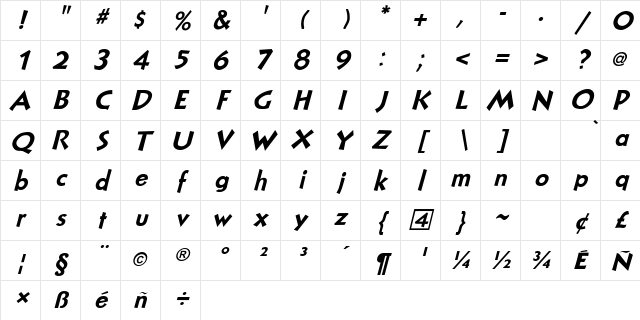
NuevoLitho PlainItalic Free Font
NuevoLitho PlainItalic
Style: PlainItalic
Design Context for NuevoLitho
NuevoLitho is a composed and adaptable typeface that performs quietly and consistently across a wide range of design contexts. The slanted form adds forward momentum and visual energy.
Pro Tip: Use NuevoLitho for emphasis, pull quotes, and subheadings where its slanted energy can add rhythm to the layout.